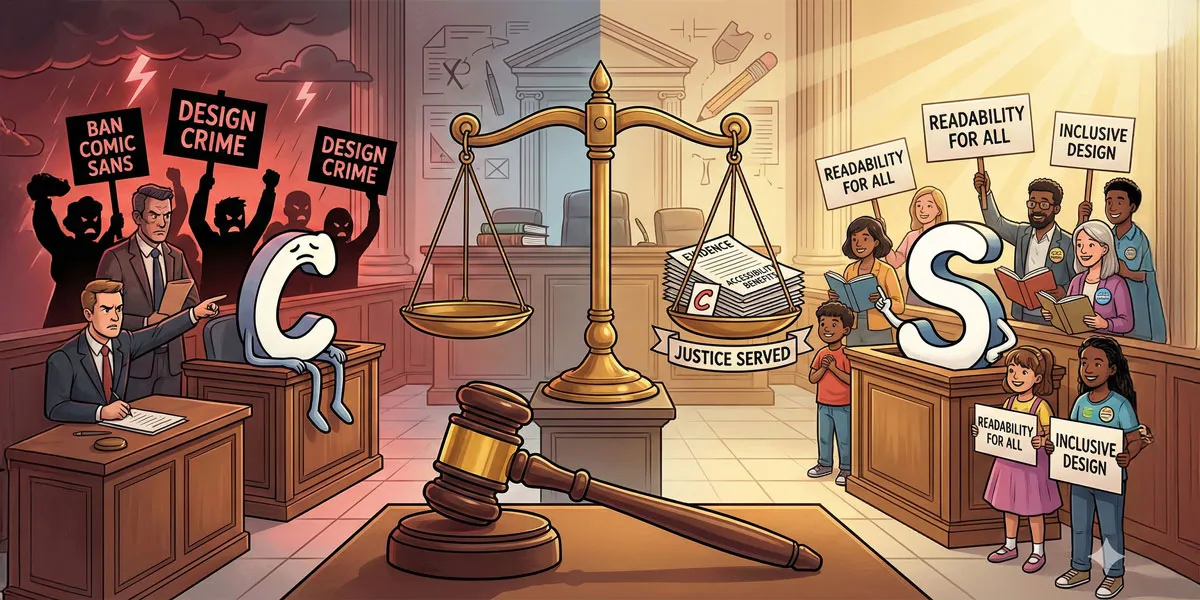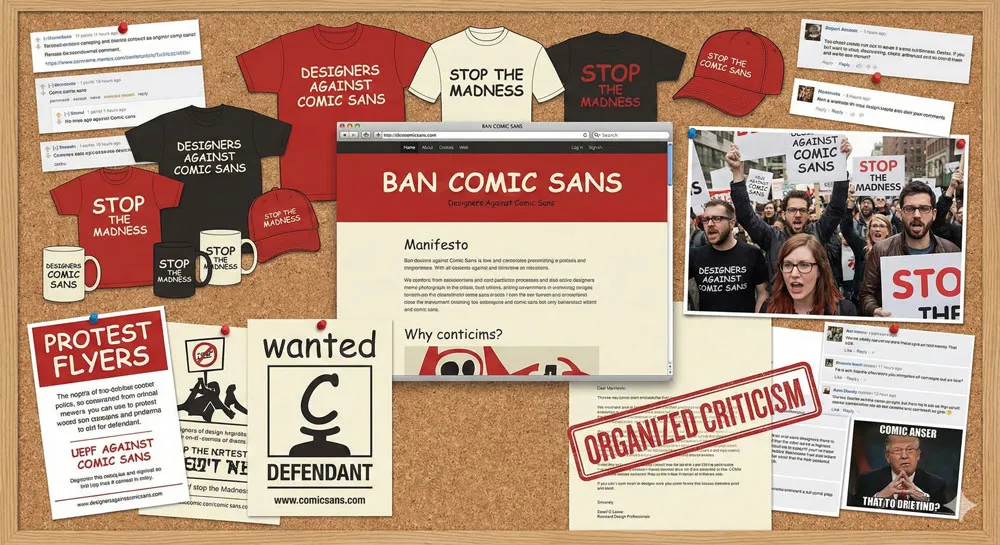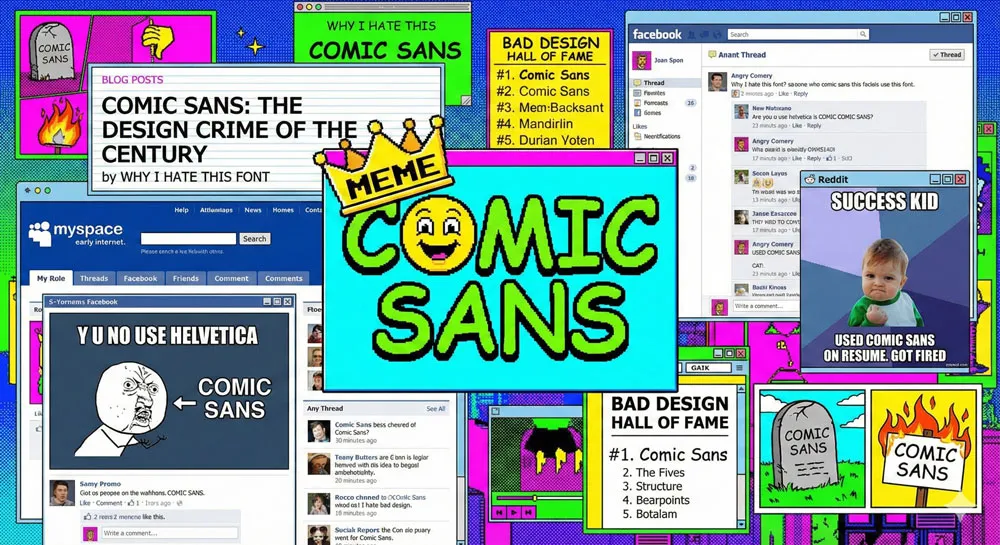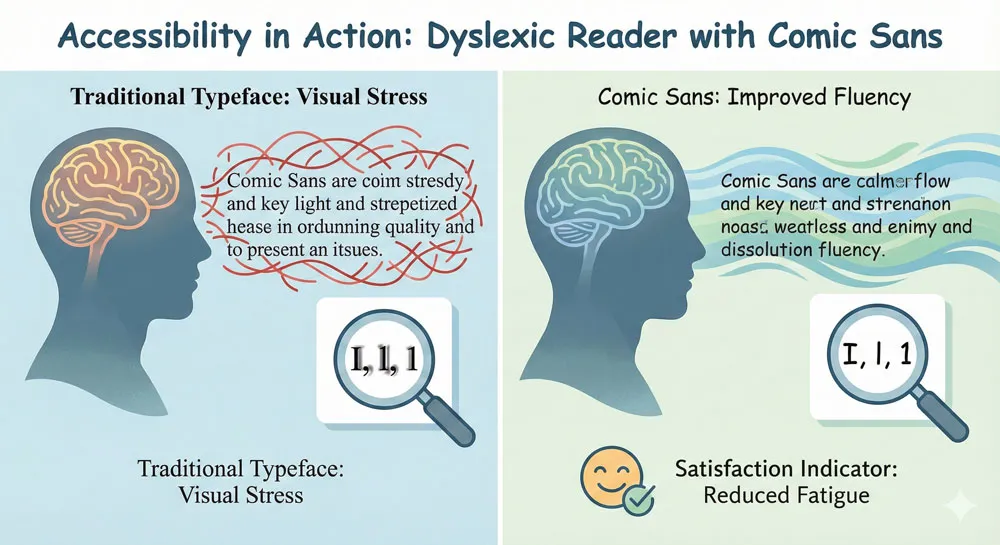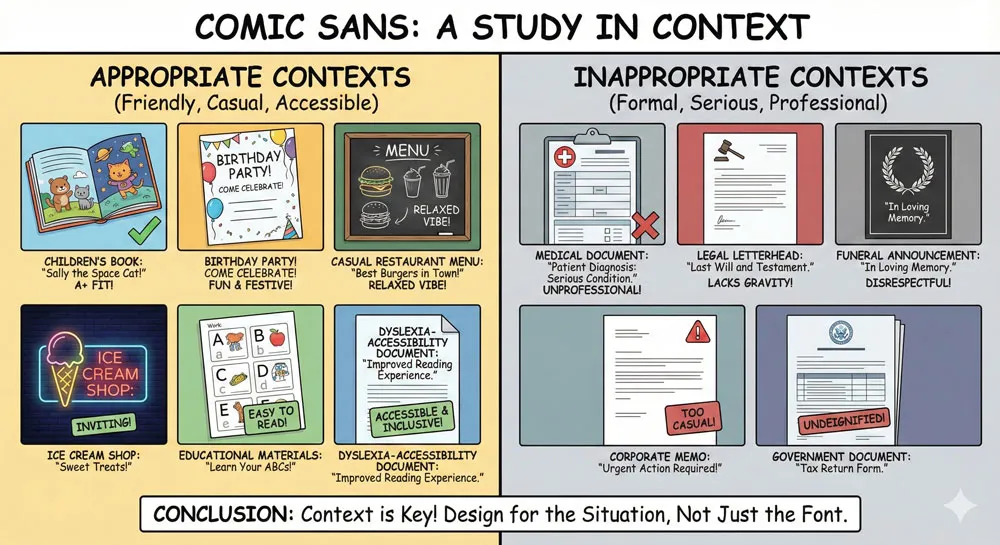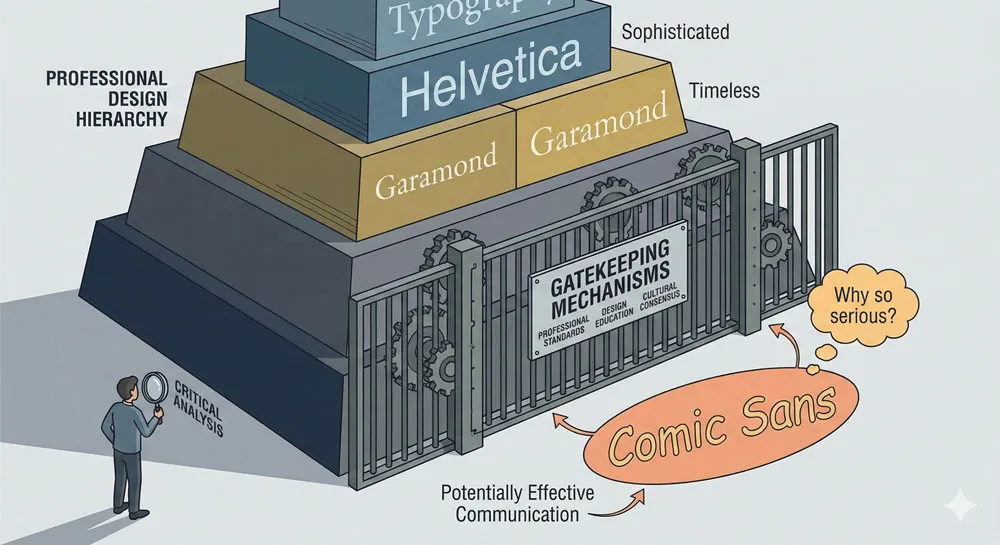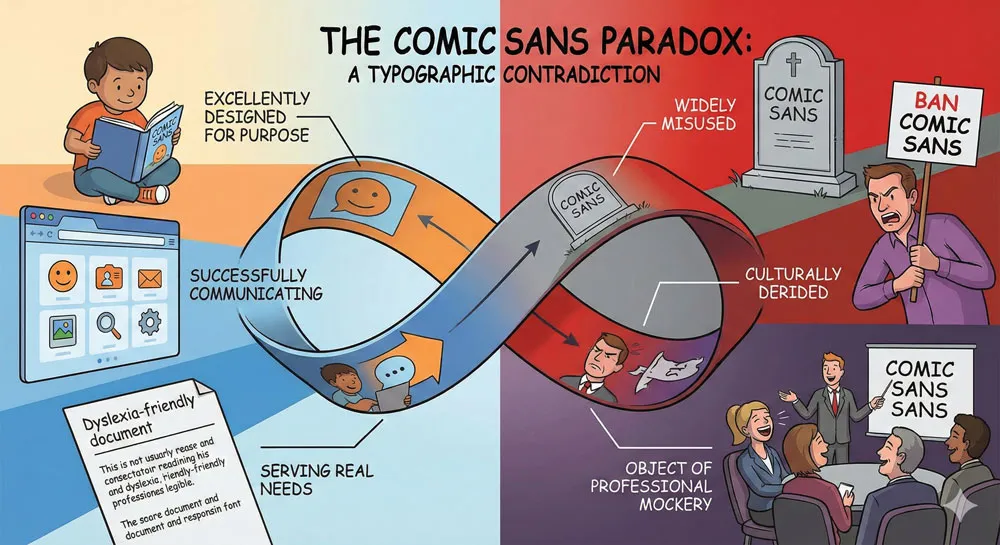
Comic Sans: True Story Behind the World’s Most Hated Font
Discover the real history of Comic Sans, why it’s so controversial, and why it’s actually brilliant for accessibility. Learn how context matters in typography and design decisions.
Introduction: The Font Everyone Loves to Hate (And Why That’s Unfair)
In the early 1990s, a typographic designer named Vincent Connare sat at his computer and made a decision that would ultimately result in one of the most culturally significant and widely despised typefaces in history.
He was not trying to create something terrible. He was not attempting to produce a font that would become the object of widespread mockery and the symbol of poor design judgment. He was simply trying to solve a practical problem.
Connare was working at Microsoft, and the company had developed a new software package called Microsoft Bobโ€”an attempt to create a user-friendly interface for non-technical users. The software was designed to feel warm, approachable, and non-threatening.
It featured illustrations of friendly characters and helpful wizards. Yet the text throughout the interface was rendered in Times New Roman, a formal, traditional serif typeface designed for newspapers in the 1930s.
There was a fundamental mismatch. The warm, friendly illustrations were undermined by the formal, chilly typography. Connare suggested that the problem was solvable. He could design a typeface that felt as warm and approachable as the illustrations.
He could create a font that would hold the user’s hand as they navigated through the software. And so Comic Sans was bornโ€”a rounded, friendly typeface inspired by the lettering in comic books, designed with the explicit goal of being warm, accessible, and non-threatening.
For a brief moment, Comic Sans achieved its intended purpose. It appeared in Microsoft software and successfully communicated friendliness and approachability. And then, something unexpected happened.
Comic Sans escaped from Microsoft and became bundled into Windows 95, suddenly available to hundreds of millions of computer users worldwide. People discovered the font, and they liked it. It was friendly. It was distinctive. It was approachable. It was, in a word, not like a typeface.
And then, just as quickly as Comic Sans had captured the world’s affection, the cultural narrative shifted. Design professionals began to openly mock Comic Sans. Bloggers created “Ban Comic Sans” websites.
The typeface became a symbol of poor design judgment, amateur hour, and a fundamental misunderstanding of typography. Comic Sans went from being a practical solution to a professional problem into a cultural punchline.
Yet this narrative of Comic Sans as an inherently “bad” font obscures a more nuanced truth. Comic Sans is not bad. It is contextually appropriate in certain situations and entirely inappropriate in others.
Like all typefaces, Comic Sans has a purpose. The tragedy of Comic Sans is not that it was designed poorlyโ€”it was designed brilliantly for its intended purposeโ€”but that it became used so ubiquitously in contexts for which it was never intended.
This comprehensive exploration of Comic Sans tells the real story of how a practical, well-designed typeface became a symbol of design failure.
It examines the history of Comic Sans, the psychology behind the hatred, the legitimate contextual appropriateness of the font in certain applications, the accessibility benefits that design professionals often overlook, and ultimately, what the Comic Sans phenomenon reveals about typography, culture, and the invisible gatekeeping that shapes how we judge design.
The Birth of Comic Sans: Solving a Design Problem at Microsoft
The Microsoft Bob Context: Why Comic Sans Was Needed
To understand Comic Sans, you must first understand the problem it was designed to solve. In the early 1990s, Microsoft was attempting to make personal computers less intimidating to non-technical users.
The company developed Microsoft Bob, a software suite designed with a radically user-friendly interface. Bob featured helpful wizards, warm illustrations, and an overall aesthetic designed to make computers feel like helpful assistants rather than complicated machines.
The software included a finance manager, a word processor, and various other tools, all presented within a friendly, illustrated environment. There was a problem, however: the actual text within this warm, friendly interface was rendered in Times New Roman, a typeface designed in the 1930s for The Times newspaper.
Times New Roman communicates formality, tradition, and authority. It is the opposite of warm or approachable. When users saw Times New Roman text accompanying friendly, cartoonish illustrations, they experienced cognitive dissonanceโ€”a mismatch between the visual style of the typography and the visual style of the surrounding interface.
Vincent Connare worked at Microsoft as a typographic engineer (a job title that speaks volumes about how the company thought about type design). He was responsible for ensuring that Microsoft software had appropriate, functional typography. Looking at Microsoft Bob, Connare immediately recognized the problem.
The interface needed a typeface that matched its warm, friendly aesthetic. It needed a typeface that felt like it had been drawn by a friendly hand, that communicated approachability rather than formality, and that would make non-technical users feel comfortable rather than intimidated.
Connare had an insight: the same visual language used in comic booksโ€”rounded letterforms, varied stroke weights, a sense of friendliness and informalityโ€”could be translated into a typeface.
Comic books had been using hand-lettering for decades that was simultaneously readable and friendly. Why not create a typeface that captured these qualities?
Vincent Connare: The Designer and His Influences
Vincent Connare came to Microsoft from Agfa Compugraphic, where he had worked as a type designer. He was trained first as a photographer and painter, which meant he brought visual sensibilities to type design that went beyond pure geometric or systematic thinking.
He understood how images communicated emotion and how visual forms could trigger psychological responses.
Connare’s inspiration for Comic Sans came partly from deliberate study and partly from spontaneous creative intuition. He had Frank Miller’s Batman: The Dark Knight Returns on his deskโ€”the graphic novel that had helped elevate comics into a respected art form.
He also studied Alan Moore’s and Dave Gibbons’ Watchmen. Both works featured innovative lettering that melded visuals and text seamlessly, creating a sophisticated reading experience where typography and illustration worked together.
Connare was particularly interested in how comic book lettering created a sense of personality and emotion that went beyond simple communication. Each letter was hand-drawn, which meant letters could vary slightly, giving them a sense of individuality and humanity. Comic book lettering was not mechanical or robotic; it was human and warm.
However, Connare also understood a fundamental constraint: Comic Sans could not actually use hand-drawn, individually varying letterforms. It had to be a digital typeface where each letter was identical every time it appeared. The challenge was to create identical letterforms that somehow retained the sense of friendly, human warmth that made comic book lettering so appealing.
Connare made deliberate design choices to achieve this. He created soft, rounded letterformsโ€”the visual equivalent of a child’s blunted scissors, with no sharp points to snag or intimidate.
He made the letterforms slightly informal, with subtle variations in proportion and weight that suggested human hand-drawing even though every instance of each letter was identical. He created a typeface that felt friendly and approachable despite its digital uniformity.
The Design Process: Creating Warm Typography
Connare used Macromedia Fontographer, the standard tool for digital type design in the early 1990s. He drew each letterform repeatedly within a grid, refining the shapes until he achieved his desired effect.
He worked carefully to ensure that despite the rounded, informal aesthetic, the typeface remained legible. Each letter had to be clearly distinguishable from similar letters (a problem that would later plague Comic Sans when it was used at very small sizes in inappropriate contexts).
Connare paid careful attention to the spacing between letters (kerning) and the overall visual balance of the typeface. Like any skilled type designer, he understood that legible, beautiful typography requires attention to countless small details.
Connare relaxed his eyes to concentrate on the white space behind letters, gauging the space between characters, the space between lines of text, and the visual weight of the letterforms.
The result was a typeface that successfully communicated friendliness and approachability while remaining legible at various sizes. Comic Sans was not a technically simple typeface; it was a thoughtfully designed solution to a specific communication problem.
Comic Sans in Microsoft Bob: Initial Success and Limited Scope
When Connare presented Comic Sans to the team working on Microsoft Bob, the response was initially positive. The typeface successfully communicated the warm, friendly aesthetic that the software was designed to project.
However, there was an immediate practical problem: Microsoft Bob had already been designed with Times New Roman measurements. Everything in the softwareโ€”text sizes, speech bubbles, interface elementsโ€”had been built around Times New Roman’s proportions.
Comic Sans was slightly larger than Times New Roman, which meant the typeface could not simply be substituted without redesigning many interface elements. The team decided to proceed with Times New Roman, and Microsoft Bob was released with its original typography unchanged.
This moment is crucial to understanding Comic Sans’s later history. The typeface was designed with a specific, limited scope: to improve the typography in a particular software package for non-technical users.
It was not designed to be a universal typeface for all purposes. It was not designed to be used on wedding invitations, medical documents, or corporate websites. It was designed for a specific purpose in a specific context.
Yet fate intervened. Although Microsoft Bob itself was not a commercial success, Comic Sans had been programmed into the software.
When the font was later included in Microsoft’s broader distribution systems and eventually bundled with Windows 95, Comic Sans suddenly became available to hundreds of millions of computer users worldwide.
Related Topics:
Comic Sans Escapes: From Microsoft Bob to Global Ubiquity
Windows 95 and Sudden Popularity
The turning point for Comic Sans came with Windows 95. Microsoft bundled Comic Sans with Windows 95 as one of the operating system’s standard fonts.
Suddenly, every Windows user had access to Comic Sans. And unlike most system fonts that are designed to be workhorses (like Arial or Times New Roman), Comic Sans was distinctive. It stood out from the crowd.
Users discovered Comic Sans and, by and large, liked it. It was different from the formal, corporate fonts they were used to. It was friendly. It was approachable.
It communicated warmth and informality. And because it was so distinctive, it was perfect for people who wanted their text to stand out or to communicate a casual, friendly tone.
Comic Sans began appearing everywhere. Restaurant menus used Comic Sans because it communicated a casual, approachable dining experience. Birthday party invitations used Comic Sans because it communicated fun and celebration.
Websites used Comic Sans in their early days because it communicated friendliness and accessibility. Small businesses used Comic Sans because it made their materials feel less corporate and more personal.
In these contexts, Comic Sans was often an excellent choice. A casual restaurant genuinely does communicate a warmer, more approachable aesthetic with Comic Sans than with Helvetica.
A birthday party invitation genuinely does feel more celebratory with Comic Sans than with Times New Roman. These were not examples of Comic Sans being misused; these were examples of Comic Sans being used exactly as it was designed to be usedโ€”to communicate friendliness, approachability, and informality.
However, Comic Sans began to appear in contexts for which it was never designed. People used Comic Sans on medical documents, legal papers, funeral announcements, and corporate letterheads.
They used it in contexts where the casual, friendly aesthetic of the typeface undermined the serious tone of the content. This is where the genuine criticism of Comic Sans becomes relevant.
The Rise of Comic Sans as a Design Default
One of the most interesting aspects of Comic Sans’s early history is how quickly it became a default choice, particularly for people with limited design training. Comic Sans was available, it was distinctive, and it was easy to use.
People who did not have any formal training in typography or design would encounter Comic Sans and think, “This font makes my text look different and friendly. I’ll use it.”
This phenomenon is revealing because it suggests something important about design literacy. Comic Sans became popular not because it was the best choice for most applications, but because it was a visible, distinctive choice that non-professionals could make.
In a world of bland corporate typefaces like Arial and Times New Roman, Comic Sans offered an alternative. It offered a way for people to express personality and individuality in their typography.
However, this rise of Comic Sans as a default choice also created a backlash. Professional designers began to see Comic Sans everywhereโ€”used inappropriately in contexts where it undermined the intended message.
A doctor’s office using Comic Sans on a medical brochure was genuinely problematic because the casual, playful typeface undermined the seriousness and authority of medical information. A lawyer using Comic Sans on a legal document was genuinely inappropriate because the friendly typeface contradicted the formal tone of legal communication.
Yet design professionals conflated these legitimate examples of Comic Sans misuse with the typeface itself. The problem was not Comic Sans; the problem was using Comic Sans inappropriately.
But the professional design community began to treat Comic Sans as inherently bad, regardless of context.
Related Topics:
The Hate Campaign: How Comic Sans Became a Cultural Punchline
The Ban Comic Sans Movement
By the early 2000s, a coordinated cultural movement had emerged to criticize and ban Comic Sans. The most visible manifestation of this movement was the “Ban Comic Sans” website, created by Holly and David Combs, a husband-and-wife team who became passionate advocates against the typeface.
The Combs created merchandiseโ€”t-shirts, mugs, and capsโ€”with anti-Comic Sans messaging. They created a manifesto explaining their position.
The Combs were articulate and thoughtful in their criticism. They acknowledged that font selection is a matter of personal preference, but they argued that certain fonts should be used in certain contexts.
They argued that Comic Sans was inappropriate for serious communication. They used a memorable metaphor: “Typesetting such a message in Comic Sans would be ludicrous analogous to showing up for a black tie event in a clown costume.”
This metaphor is revealing because it captures something true about Comic Sans. The typeface does have a specific personality, and using it in certain contexts creates a mismatch between the typeface’s personality and the context’s requirements.
A black-tie event requires formal dress; a legal document requires formal typography. Comic Sans violates these contextual expectations.
However, what began as legitimate criticism of Comic Sans misuse evolved into something more like cultural gatekeeping and snobbery. Design professionals began to treat Comic Sans as intrinsically bad, regardless of context.
The typeface became a symbol of poor design judgment. People who used Comic Sans were coded as lacking taste, sophistication, or design literacy.
The Psychology of the Hate Campaign
What is interesting about the Comic Sans hate campaign is its intensity and longevity. Why did design professionals become so passionate about criticizing a single typeface? Why did Comic Sans inspire such vehement cultural backlash?
Part of the answer lies in professional gatekeeping. Design professionals, like members of any profession, have an investment in maintaining professional standards and distinguishing themselves from non-professionals.
Comic Sans, as a typeface that was popular with non-professionals and often misused in inappropriate contexts, became a symbol of unprofessional design. By criticizing Comic Sans, design professionals were asserting their own professional standards and distinguishing themselves from non-professional designers.
However, there is also an element of genuine frustration. Comic Sans became ubiquitous in inappropriate contextsโ€”so ubiquitous that many designers felt they were constantly encountering it misused.
A doctor’s office with a Comic Sans medical brochure, a law firm with Comic Sans letterheads, a funeral home with Comic Sans on gravestonesโ€”these were genuinely problematic examples of Comic Sans misuse. The frustration was real.
Yet the frustration became directed at the typeface itself rather than at the misuse. Design professionals began to treat Comic Sans as if the typeface itself was the problem, rather than treating the problem as a matter of contextual inappropriateness.
This is a crucial distinction that often gets lost in the Comic Sans debate.What is interesting about the Comic Sans hate campaign is its intensity and longevity. Why did design professionals become so passionate about criticizing a single typeface? Why did Comic Sans inspire such vehement cultural backlash?
Part of the answer lies in professional gatekeeping. Design professionals, like members of any profession, have an investment in maintaining professional standards and distinguishing themselves from non-professionals.
Comic Sans, as a typeface that was popular with non-professionals and often misused in inappropriate contexts, became a symbol of unprofessional design. By criticizing Comic Sans, design professionals were asserting their own professional standards and distinguishing themselves from non-professional designers.
However, there is also an element of genuine frustration. Comic Sans became ubiquitous in inappropriate contextsโ€”so ubiquitous that many designers felt they were constantly encountering it misused.
A doctor’s office with a Comic Sans medical brochure, a law firm with Comic Sans letterheads, a funeral home with Comic Sans on gravestonesโ€”these were genuinely problematic examples of Comic Sans misuse. The frustration was real.
Yet the frustration became directed at the typeface itself rather than at the misuse. Design professionals began to treat Comic Sans as if the typeface itself was the problem, rather than treating the problem as a matter of contextual inappropriateness. This is a crucial distinction that often gets lost in the Comic Sans debate.
How Comic Sans Became Internet Culture
The Ban Comic Sans campaign was particularly effective because it emerged at a moment when the internet was becoming a major cultural force. The campaign spread through blogs, websites, and early social media.
Comic Sans became a memeโ€”a symbol of bad design that could be invoked instantly to communicate the idea of poor taste or lack of sophistication.
This internet amplification of Comic Sans hatred is significant because it spread the message far beyond the design professional community. People who had no formal training in design began to absorb the cultural narrative that Comic Sans was “bad.”
The typeface became culturally coded as uncool, unsophisticated, and indicative of poor design judgment.
Simon Garfield notes in “Just My Type” that Vincent Connare found himself at the center of an internet hate campaign. He became the “Comic Sans guy”โ€”the designer most famous not for his overall body of work but for creating a typeface that became the object of widespread mockery.
This is a remarkable and somewhat cruel position to occupy. Connare had designed the typeface with good intentions, for a specific purpose, and the typeface had accomplished its intended goals. Yet he became associated with one of design’s most visible “failures.”
Related Topics:
The Defense of Comic Sans: Why Connare Was Right
Vincent Connare’s Philosophical Response
To his credit, Vincent Connare has maintained a philosophical and sometimes humorous perspective on the Comic Sans hatred. He has refused to apologize for the typeface or to treat it as a failure.
Instead, he has offered some insights into what he believes the Comic Sans phenomenon reveals about typography, design, and culture.
One of Connare’s most memorable statements is: “If you love Comic Sans, you don’t know much about typography. If you hate it, you really don’t know much about typography either, and you should get another hobby.”
This statement is both dismissive and profound. It suggests that both uncritical love and uncritical hatred of Comic Sans represent failures to understand the nuanced relationship between typography and context.
Connare has also pointed out that Comic Sans was never intended to be a universal typeface. It was designed for a specific purpose. He has noted that people like Comic Sans “because it’s not like a typeface”โ€”it communicates in a fundamentally different way than traditional typefaces.
This is precisely why it is appropriate in certain contexts (where you want to communicate that something is informal, friendly, and approachable) and entirely inappropriate in others (where you want to communicate formality, authority, and seriousness).
The Accessibility Argument: Comic Sans for Dyslexic Readers
One of the most significant arguments in Comic Sans’s defenseโ€”and one that is often overlooked in the general cultural hatredโ€”is the typeface’s exceptional accessibility for people with dyslexia.
Research has demonstrated that Comic Sans, along with a few other typefaces with distinctive letterforms and clear differentiation between similar characters, is significantly easier for many dyslexic readers to read than traditional typefaces like Times New Roman or Arial.
This is a powerful argument because it demonstrates that Comic Sans has legitimate, important uses beyond casual communication. For people with dyslexia, Comic Sans is not a stylistic choice; it is an accessibility tool that materially improves their ability to read and comprehend text.
Using Comic Sans in educational materials for students with dyslexia, in medical information for dyslexic patients, and in other dyslexia-sensitive contexts is not a failure of design; it is an example of design serving human needs.
Connare himself has written about this accessibility dimension of Comic Sans. He notes that both Trebuchet (another typeface he designed) and Comic Sans are highly regarded by specialists who work with dyslexic children.
The easy, unthreatening clarity of the letterforms, the clear differentiation between similar characters, and the overall distinctiveness of the typeface make it an excellent choice for dyslexic readers.
This accessibility argument fundamentally challenges the narrative of Comic Sans as an inherently bad typeface.
If Comic Sans genuinely helps people with dyslexia read more effectively, then criticizing Comic Sans without acknowledging this benefit is not just gatekeepingโ€”it is potentially harmful. It is prioritizing abstract design principles over practical human accessibility needs.
Context Matters: When Comic Sans Is Perfectly Appropriate
The most important argument in Comic Sans’s defense is simple: context matters. Comic Sans is an appropriate, even excellent, choice for certain applications and an inappropriate choice for others.
The problem has never been Comic Sans itself; the problem has been using Comic Sans in contexts for which it was never designed.
Comic Sans is perfectly appropriate for:
• Children’s books and educational materials
• Casual, friendly communication
• Birthday parties, celebrations, and informal events
• Accessibility-focused materials for dyslexic readers
• Playful, informal brand communication
• Comic books and graphic novels (the original inspiration)
• Signage for informal, casual businesses (ice cream shops, toy stores, casual restaurants)
• Personal communication and informal correspondence
Comic Sans is inappropriate for:
• Medical documents and healthcare information (unless specific accessibility needs justify it)
• Legal documents and formal correspondence
• Corporate branding and professional communication
• Funeral announcements and serious institutional communication
• Academic and scholarly papers
• Government documents and official communication
• Financial statements and formal business documents
The key insight is that this is not unique to Comic Sans. Every typeface is appropriate in certain contexts and inappropriate in others. Helvetica, while generally excellent for corporate and institutional communication, would be terrible for a children’s book.
Garamond, while beautiful for literary typography, would be inappropriate for emergency signage where maximum legibility and accessibility are paramount.
The problem with Comic Sans is not that it is contextually specificโ€”all typefaces are. The problem is that Comic Sans became so ubiquitous and so available that it began to be used in contexts for which it was never designed.
And because the design professional community responded to this misuse with blanket criticism of the typeface itself, the cultural narrative became distorted.
Related Topics:
The Mythology of Comic Sans: What Actually Gets Used Badly
Examining the “Bad” Uses of Comic Sans
One of the most interesting aspects of the Comic Sans phenomenon is examining the specific instances that design professionals cite as examples of Comic Sans misuse. These citations reveal something about the gatekeeping at work in the design community.
The canonical example is Comic Sans used in medical contexts. Design professionals frequently cite examples of medical brochures, health information, and doctor’s office signage using Comic Sans as evidence of the typeface’s failure.
Yet in many of these cases, the use of Comic Sans might actually be justified on accessibility grounds. If a medical practice is attempting to make health information accessible to all readers, including those with dyslexia, Comic Sans might be an excellent choice.
Another frequently cited example is Comic Sans used on funeral home signage or gravestones. Design professionals treat this as obviously inappropriateโ€”Comic Sans is playful and casual, so it is “wrong” for a solemn occasion.
Yet one could argue that what a funeral home should prioritize is legibility and accessibility for grieving people of all ages and abilities, many of whom may have dyslexia or other reading difficulties. From this perspective, Comic Sans might actually be a thoughtful choice.
The most telling example from the “Ban Comic Sans” campaign was their finding of a brochure describing irritable bowel syndrome printed in Comic Sans. The campaign treated this as obviously inappropriate and laughable.
Yet consider the context: a medical brochure attempting to communicate about an uncomfortable, somewhat embarrassing condition to a general audience.
Comic Sans communicates approachability and removes the sense that the medical system is cold and institutional. For this specific communication goal, Comic Sans might be an excellent choice.
What becomes clear when examining these specific examples is that many instances cited as “bad uses” of Comic Sans actually represent thoughtful design decisions that prioritize accessibility and communication effectiveness over abstract design principles.
The design community’s dismissal of these uses as inherently inappropriate reveals something about the professional gatekeeping at work.
The Actual Problem: Comic Sans as Default Rather Than Choice
The genuine problem with Comic Sans is not the typeface itself but the phenomenon of Comic Sans becoming a default choice for people with limited design literacy.
When someone uses Comic Sans simply because it is available and distinctive, without considering whether it is appropriate for the specific context, that is a missed design opportunity.
However, this is not a problem unique to Comic Sans. The same phenomenon occurs with other default typefaces. Arial, the bland geometric sans-serif bundled with Windows, is used ubiquitously in contexts where better typeface choices are available.
Times New Roman, bundled with virtually every computer, is used as a default even in contexts where it is inappropriate.
The problem is not Comic Sans; the problem is design literacy. Many people do not understand the relationship between typeface and context. They do not understand that different typefaces communicate different messages and create different emotional effects.
They treat typeface selection as a purely aesthetic choice (“I like the way Comic Sans looks”) rather than as a strategic communication choice (“Comic Sans communicates the right tone for this context”).
Comic Sans became the focus of design professional criticism precisely because it became a visible, distinctive default choice. When people used Comic Sans inappropriately, it was obvious.
When people used Times New Roman inappropriately (which happens constantly), it was invisible because Times New Roman is the default, the typeface that disappears into the background.
Related Topics:
Context Is Everything: Where Comic Sans Actually Works
Comic Sans in Children’s Materials
One of the clearest examples of Comic Sans being perfectly appropriate is in children’s books and educational materials. Children are the typeface’s ideal audience.
The rounded, friendly letterforms, the playful sense of informality, the distinctive personalityโ€”all of these qualities make Comic Sans excellent for children’s materials.
Teachers have found that Comic Sans works well for classroom materials, worksheets, and educational signage. For children learning to read, the clear, distinctive letterforms help with character recognition. The friendly aesthetic communicates that learning is approachable and fun rather than intimidating and formal.
However, when children reach higher grades and transition to academic work, other typefaces become more appropriate. The shift from Comic Sans to more formal typefaces mirrors a shift in communication context.
As the material becomes more serious and academic, the typography should reflect that shift. This is not a failure of Comic Sans; it is an example of context-appropriate typographic choice.
Comic Sans in Casual Business
Small businesses, particularly casual, approachable businesses, often use Comic Sans effectively. An ice cream shop, a toy store, a casual restaurant, or an informal salon might use Comic Sans to communicate their casual, friendly aesthetic.
In these contexts, Comic Sans is not a failure of design; it is a strategic choice to communicate the business’s personality and values.
Similarly, businesses targeting children or emphasizing approachability (children’s entertainment venues, youth-focused nonprofits, playgroups) might use Comic Sans to communicate their mission and values.
The typeface effectively communicates that the organization is friendly, non-threatening, and child-centered.
In these contexts, Comic Sans is often a more effective communication choice than a formal sans-serif like Helvetica.
Helvetica would communicate professionalism and authority; Comic Sans communicates friendliness and approachability. Different contexts call for different typographic messages.
Comic Sans and Accessibility
Perhaps the most important and least acknowledged context where Comic Sans is genuinely excellent is accessibility-focused communication. As noted earlier, Comic Sans is significantly easier for many dyslexic readers to read than most other typefaces.
The distinctive letterforms, the clear differentiation between similar characters (particularly the much-improved ability to distinguish lowercase “l” from the number “1” or uppercase “I”), and the overall legibility of the typeface make it an accessibility tool.
Materials designed for people with dyslexia should prioritize Comic Sans (or other dyslexia-friendly typefaces) over more aesthetically “sophisticated” choices.
An educational program serving dyslexic students, a healthcare provider serving dyslexic patients, or any organization attempting to make information accessible to people with visual processing differences should consider Comic Sans as a legitimate, effective choice.
This context represents perhaps the clearest refutation of the “Comic Sans is bad” narrative.
When a typeface genuinely improves accessibility for people with disabilities, dismissing that typeface as bad is not just design snobberyโ€”it is potentially harmful gatekeeping that prioritizes abstract design principles over human accessibility needs.
Related Topics:
The Comic Sans Phenomenon: What It Reveals About Design Culture
Professional Gatekeeping and Design Hierarchy
The Comic Sans hate campaign reveals something important about design culture. Design professionals maintain certain standards and certain hierarchies.
Certain typefaces are coded as sophisticated and appropriate; others are coded as unsophisticated and inappropriate. This coding is not based purely on technical merit; it is based on cultural association and professional gatekeeping.
Helvetica is coded as sophisticated and professional. Times New Roman is coded as formal and authoritative. Garamond is coded as elegant and literary.
Comic Sans, by contrast, is coded as unsophisticated, amateur, and poor design judgment. These codings are not based on the intrinsic qualities of the typefaces; they are based on accumulated cultural associations and professional consensus.
Comic Sans became the focus of gatekeeping precisely because it challenged the professional design hierarchy. It was a typeface that non-professionals could access and use effectively for their purposes.
It did not require professional design training to use Comic Sans competently. It was distinctive enough that even people with limited design experience could recognize it and use it to communicate a specific message.
This threatened the professional design community’s gatekeeping. If non-professionals could design with Comic Sans and achieve their communication goals, what was the value of professional design training?
The design community responded by establishing Comic Sans as an object of ridicule, thereby reasserting their professional standards and status.
The Paradox of Comic Sans’s Success
There is a paradox at the heart of the Comic Sans story. Comic Sans was designed brilliantly to achieve specific communication goals. It remains exceptionally good at communicating friendliness, approachability, and informality.
It works well for children’s materials. It is excellent for accessibility purposes. In the contexts for which it was designed, Comic Sans succeeds.
Yet Comic Sans became ubiquitously used in contexts for which it was never designed. And because the misuse was so visible and so widespread, the cultural narrative became that the typeface itself was bad, rather than that the misuse was inappropriate.
This paradox reveals something important about design and communication. Typefaces do not have objective value; they have contextual value. A typeface that is excellent in one context might be terrible in another. The job of the designer is to understand context and to make typographic choices that align with that context.
The tragedy of Comic Sans is not that the typeface is bad. The tragedy is that Comic Sans became so available, so visible, and so easy to use that it became a default choice for people without design training.
And when those people used Comic Sans in inappropriate contexts, the design professional community responded not by helping them understand context-appropriate typography, but by dismissing both Comic Sans and the people using it as bad designers with poor taste.
Comic Sans and Design Literacy
The Comic Sans phenomenon ultimately reveals a crisis in design literacy. Most people do not understand how typography communicates.
They do not understand that different typefaces have different personalities, different psychological effects, and different contextual appropriateness. They do not understand that choosing a typeface is not a purely aesthetic decision but a strategic communication decision.
This lack of design literacy meant that when Comic Sans became available to general users, many people used it because they liked the way it looked, without understanding whether it was appropriate for their specific context.
This led to widespread Comic Sans misuse, which led to design professional gatekeeping, which led to the current cultural narrative that Comic Sans is an inherently bad typeface.
The solution is not to ban Comic Sans (which is what the hate campaign literally called for). The solution is to increase design literacy so that more people understand the relationship between typeface choice and communication context.
If more people understood that Comic Sans is appropriate in certain contexts and inappropriate in othersโ€”just like every other typefaceโ€”then Comic Sans would be used more appropriately, and the widespread misuse would decrease.
Related Topics:
The Broader Context: Other Controversial Typefaces
Papyrus and the Same Gatekeeping
Comic Sans is not the only typeface that has become the subject of professional disdain. Papyrus, a decorative typeface with a hand-drawn, ancient aesthetic, has become similarly controversial.
Design professionals cite Papyrus as an example of bad typography when used inappropriately (on corporate documents, medical signage, etc.), but Papyrus is perfectly appropriate for certain contextsโ€”vacation resorts, botanical gardens, casual outdoor contexts where its organic aesthetic aligns with the environment.
Like Comic Sans, Papyrus became the focus of gatekeeping precisely because it was popular with non-professionals and visible in many inappropriate contexts.
The design professional response was to establish Papyrus as an object of ridicule, thereby reasserting professional standards.
Souvenir and Retro Appropriateness
Souvenir is another typeface that was fashionable in the 1970s, went out of fashion, and is now often derided as dated or retro. Yet contemporary designers sometimes deliberately use Souvenir to communicate 1970s nostalgia or vintage aesthetic.
The same typeface that is considered bad when used unconsciously becomes acceptable when its dated quality is intentional and contextually appropriate.
Impact and Legitimate Appropriateness
Impact is a condensed, heavy sans-serif that is often used inappropriately on casual documents and websites.
Yet Impact is excellently designed for its original purpose: creating high-visibility signage and headlines where maximum legibility and impact are required. In its appropriate context (emergency signage, highway signs, attention-demanding headlines), Impact is perfectly appropriate.
These other controversial typefaces demonstrate that Comic Sans is not unique in being the focus of design gatekeeping.
Rather, Comic Sans is just the most visible example of a broader pattern where design professionals establish certain typefaces as objects of ridicule, thereby reasserting their professional standards and excluding non-professionals from the community.
Related Topics:
Vincent Connare’s Legacy: Beyond Comic Sans
Connare’s Other Typefaces
While Comic Sans has overshadowed Vincent Connare’s career, he has designed other notable typefaces that are widely respected.
Most notably, he designed Trebuchet, a semi-formal humanist sans-serif that is well-regarded by designers and is frequently used in professional contexts. Trebuchet demonstrates that Connare is a skilled type designer capable of creating sophisticated, well-respected typefaces.
However, Connare will likely be remembered primarily as the designer of Comic Sans, which is both unfair and revealing. It is unfair because his overall body of work includes many well-designed typefaces. It is revealing because it demonstrates the power of cultural narrative to overwhelm individual merit.
The Comic Sans Guy
Connare has written about the strange experience of becoming famous as “the Comic Sans guy.” He notes that most of the people who know who he is know him because of Comic Sans, not because of his broader body of work.
He has become a symbol of the typeface, and the typeface has become a symbol of design failure.
Connare has handled this situation with remarkable grace and humor. He has refused to apologize for Comic Sans or to pretend that it was a mistake. He has instead used his notoriety to discuss typography, design, and context.
He created a PDF slideshow documenting odd uses of Comic Sans, including letters of appreciation from Disney and other organizations. His response to the hate campaign has been thoughtful and philosophical rather than defensive or bitter.
Related Topics:
FAQ: Common Questions About Comic Sans
Q: Is Comic Sans actually bad?
A: Comic Sans is not inherently bad. It is a well-designed typeface that communicates friendliness and approachability effectively. However, it is inappropriate in certain contexts where formality or authority are required. Like all typefaces, Comic Sans is contextually appropriate or inappropriate depending on the specific application.
Q: Why do designers hate Comic Sans?
A: Designers criticize Comic Sans partly because of legitimate instances of misuse (medical documents, legal letterheads), partly because of professional gatekeeping (establishing Comic Sans as unsophisticated to maintain professional standards), and partly because Comic Sans became ubiquitously visible in inappropriate contexts.
Q: Is Comic Sans good for accessibility?
A: Yes. Comic Sans is significantly easier for many people with dyslexia to read than most other typefaces. The distinctive letterforms and clear character differentiation make Comic Sans an excellent accessibility tool. Materials designed for people with dyslexia should consider Comic Sans as a legitimate choice.
Q: Can I use Comic Sans professionally?
A: It depends on your context. Comic Sans is perfectly appropriate for some professional applications: children’s programming, casual business communication, accessibility-focused materials. Comic Sans is inappropriate for other professional applications: formal corporate branding, legal documents, financial communications. Ask yourself: does Comic Sans communicate the right message for this specific context?
Q: What’s a better alternative to Comic Sans?
A: It depends on what you are trying to communicate. If you want friendliness and approachability, Gill Sans or Verdana might work. If you want playfulness, other options exist. If you want accessibility for dyslexic readers, Comic Sans might actually be the best choice. There is no universal “better” alternative; the choice depends on context.
Q: Was Comic Sans a mistake?
A: No. Comic Sans was designed brilliantly to solve a specific problem: making software interfaces feel warm and friendly to non-technical users. The typeface succeeded at this goal. The “mistake” was not Comic Sans itself, but the phenomenon of Comic Sans becoming ubiquitously available and used in countless contexts for which it was never designed.
Q: Why do people use Comic Sans if designers hate it?
A: People use Comic Sans because it communicates effectively. It is friendly, distinctive, and approachable. For people with limited design training, Comic Sans offers a visible way to make their typography distinctive and to communicate a casual tone. The gap between professional design standards and public preference for Comic Sans reveals a gap in design literacy.
Q: Is the “Ban Comic Sans” campaign justified?
A: The campaign made legitimate points about Comic Sans misuse in inappropriate contexts. However, the campaign went beyond calling for context-appropriate use and instead called for essentially banning the typeface altogether. This represents gatekeeping that prioritizes design professionalism over practical communication effectiveness and accessibility needs.
Q: What would Comic Sans creator Vincent Connare say about the hate?
A: Connare has been philosophical and humorous about the Comic Sans hate. He has defended the typeface, acknowledged that it is inappropriate in certain contexts, and noted that both uncritical love and uncritical hatred of Comic Sans represent failures to understand typography’s relationship to context.
Related Topics:
Conclusion: Justice for Comic Sans and Design Humility
Comic Sans is not a bad typeface. It is a well-designed typeface that effectively communicates friendliness, approachability, and informality. It is appropriate in certain contexts and inappropriate in othersโ€”just like every other typeface.
The fact that Comic Sans became the focus of such vehement cultural criticism reveals more about design gatekeeping, professional standards, and cultural hierarchy than it reveals about the typeface itself.
The Comic Sans phenomenon teaches several important lessons. First, context matters in typography. No typeface is universally appropriate or inappropriate; all typeface choices are contextual. Second, design literacy is crucial. Most people do not understand the strategic role of typography in communication.
Third, gatekeeping and professional standards can become barriers to understanding and accessibility. When design professionals dismiss Comic Sans without acknowledging its accessibility benefits or its appropriate uses, they are prioritizing abstract design principles over practical human needs.
The justice for Comic Sans is not to celebrate the typeface as perfect or to use it everywhere. The justice for Comic Sans is to understand it as a well-designed tool that serves specific purposes well.
The justice is to acknowledge that Vincent Connare designed the typeface brilliantly to solve a specific problem. The justice is to recognize that Comic Sans has legitimate, important uses in accessibility contexts.
The justice is to stop treating Comic Sans as a symbol of design failure and to instead understand it as a symbol of how context-appropriate typography works.
Perhaps most importantly, the Comic Sans phenomenon teaches us about humility. It teaches designers that professional standards and abstract design principles should not override practical communication effectiveness and accessibility needs.
It teaches us that there is often a gap between professional judgment and public preference, and that this gap is sometimes evidence that professionals are being too rigid rather than evidence that the public lacks taste.
Vincent Connare created a typeface with good intentions, for a specific purpose. That typeface worked well for its intended purpose.
That the typeface became misused in inappropriate contexts is not an indictment of the typeface or its designer; it is an indictment of design literacy and of the professional gatekeeping that has made people afraid of making typographic choices that deviate from accepted conventions.
Justice for Comic Sans means using it appropriately while respecting its legitimate purposes. It means acknowledging its accessibility benefits. It means stopping the unnecessary mockery and gatekeeping.
And it means recognizing Vincent Connare as a skilled designer who created a typeface that serves real purposes and helps real people.
Related Topics:
About the Author
Lalit M. S. Adhikari is a Digital Nomad and Educator since 2009 in design education, graphic design and animation. He’s taught 500+ students and created 200+ educational articles on design topics. His teaching approach emphasizes clarity, practical application and helping learners.